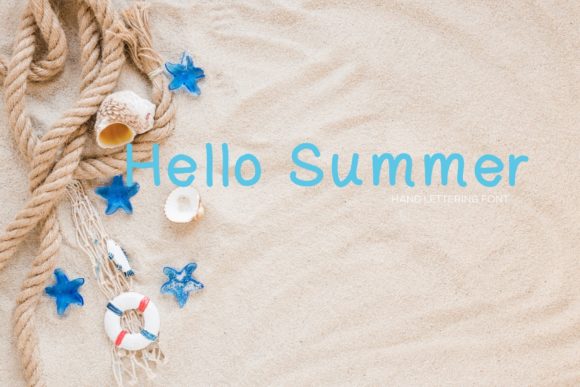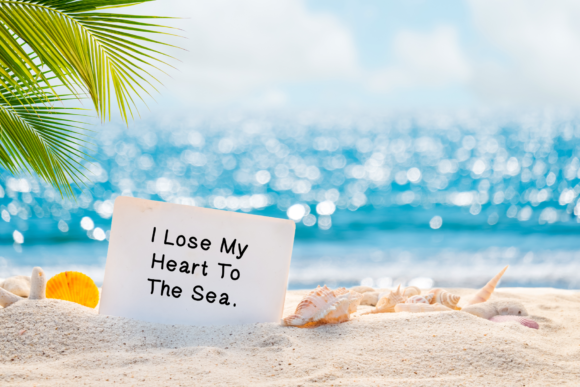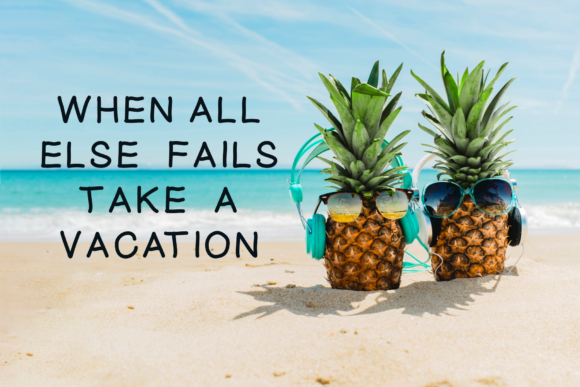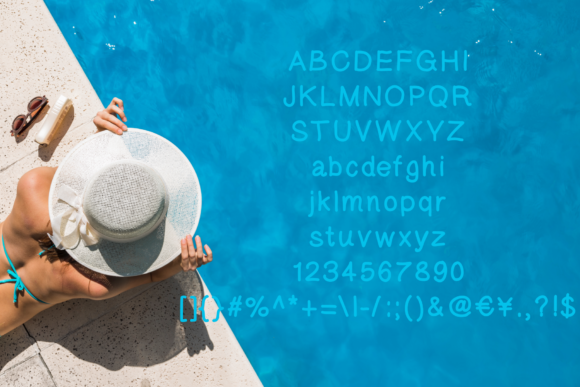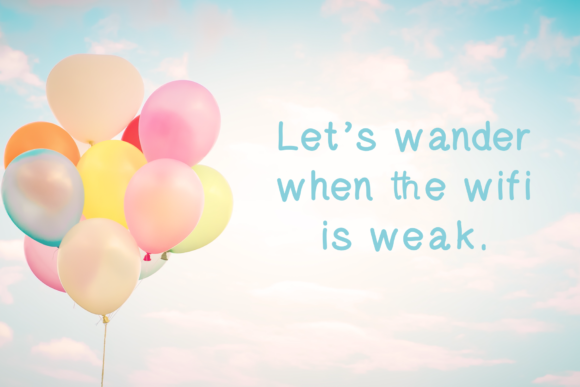
Hello Summer Font
About Hello Summer Font
Hello Summer Font is a gorgeous and casual handwritten font. This font is perfect for children themed designs, especially when combined with bright colors.